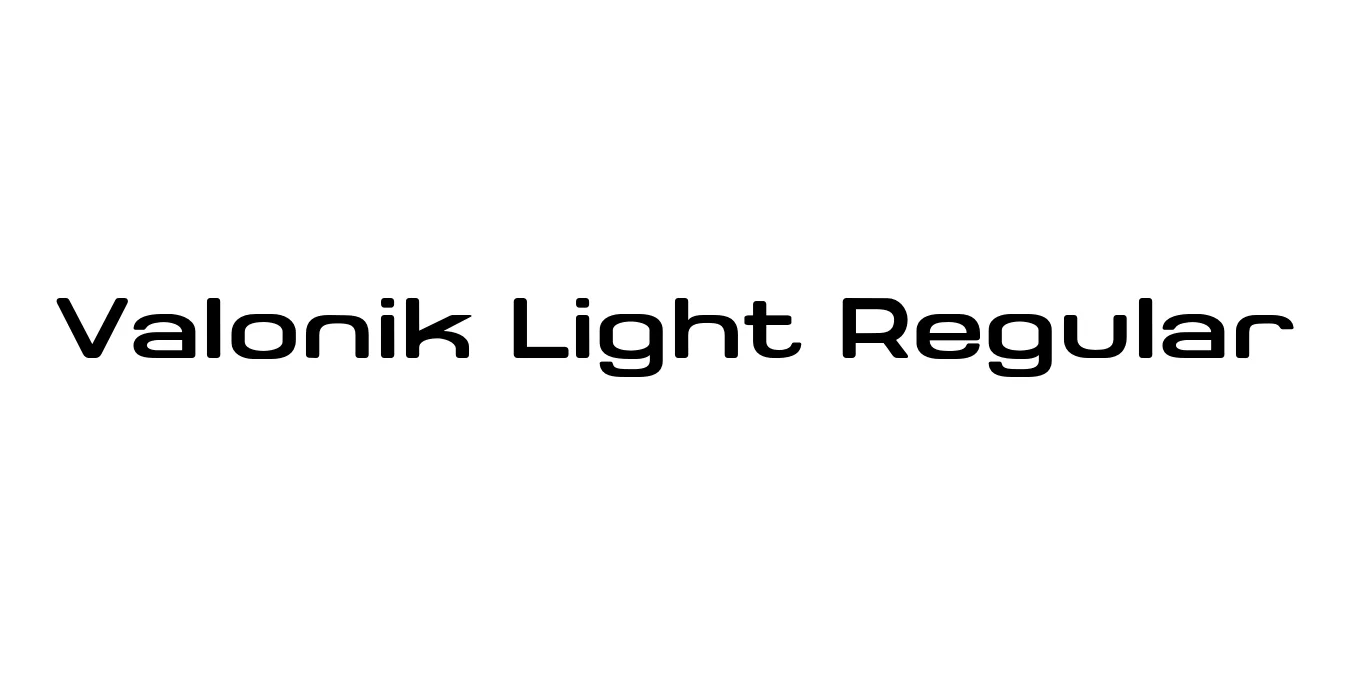
Valonik Light Regular
Designed by Mariya V. Pigoulevskaya
| Category | Sans-serif |
| Designer | Mariya V. Pigoulevskaya |
Valonik Light Regular is a sophisticated geometric sans-serif typeface crafted with a focus on modern aesthetics and technical precision. Designed by Mariya V. Pigoulevskaya, this font features a balanced architecture that combines sharp, industrial edges with subtle humanist curves, creating a visual language that is both professional and approachable. Its light weight provides an elegant, airy presence that is particularly effective in high-contrast design environments and luxury branding.
Originally developed for The Northern Block, Valonik was engineered to meet the demands of contemporary digital and print media. It excels in delivering high legibility across various screen resolutions and paper types, thanks to its wide apertures and consistent stroke modulation. Whether used for corporate identity systems or minimalist editorial layouts, Valonik Light Regular offers a timeless quality that adapts seamlessly to diverse creative projects and complex typography hierarchies.
Valonik Light Regular Best Uses
Optimized for clean and modern website headers and navigational elements.
Excellent for technology, architecture, and lifestyle brand identities.
Perfect for high-end magazine spreads, fashion journals, and book covers.
Highly legible for application interfaces, dashboards, and mobile UI/UX.